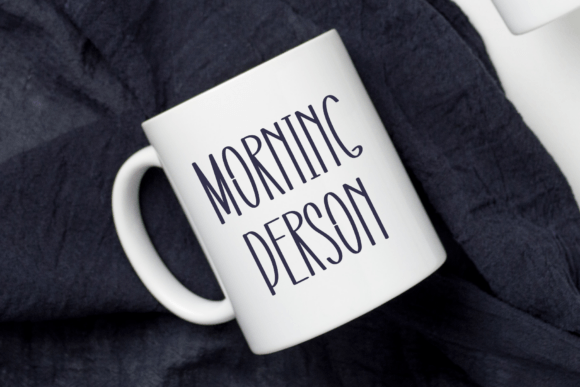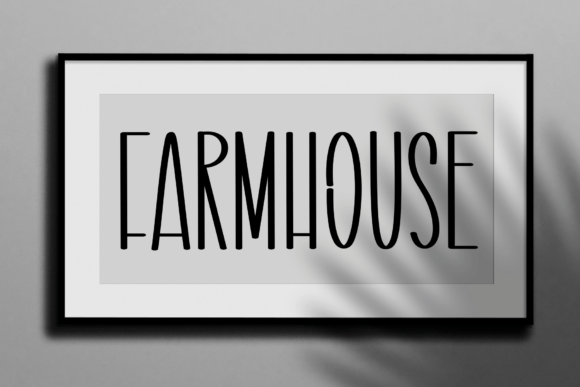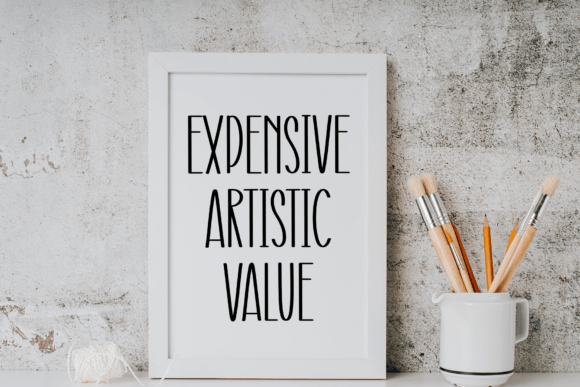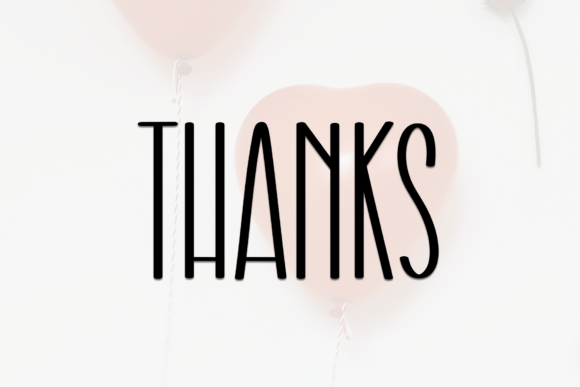
Introducing Bestlove Font: The Perfect Handwritten Marker Font for Your Designs
Are you a designer or crafter looking for a unique and elegant font to elevate your designs? Look no further than Bestlove Font, a beautiful handwritten font that mimics the look of a marker. With its relaxed and sporty feel, Bestlove Font is perfect for a wide range of design projects, from branding and logos to wedding supplies, greeting cards, and marketing promotions.
What Makes Bestlove Font So Special?
Bestlove Font is a carefully crafted handwritten font that exudes a sense of luxury and elegance, while still maintaining a casual and approachable feel. Its marker-like appearance gives it a distinctive and eye-catching quality that sets it apart from other fonts. Whether you’re looking to create a sophisticated brand identity or a playful marketing campaign, Bestlove Font is the perfect choice.
Key Features of Bestlove Font
- Handwritten with a marker feel: Bestlove Font has a unique, hand-crafted look that gives it a personal and human touch.
- Relaxed and sporty feel: The font’s casual vibe makes it perfect for designs that need to feel approachable and laid-back.
- Luxurious and elegant: Despite its casual feel, Bestlove Font still conveys a sense of sophistication and refinement.
- Versatile: Use Bestlove Font for a wide range of design projects, from branding and logos to wedding supplies, greeting cards, and marketing promotions.
Use Cases for Bestlove Font
Bestlove Font is an incredibly versatile font that can be used in a variety of design projects. Here are some ideas to get you started:
- Branding and logos: Create a unique and memorable brand identity with Bestlove Font.
- Wedding supplies: Use Bestlove Font to create beautiful and elegant wedding stationery, decorations, and favors.
- Greeting cards: Add a personal touch to your greeting cards with Bestlove Font’s marker-like appearance.
- Fashion and lookbooks: Use Bestlove Font to create stylish and sophisticated fashion designs and lookbooks.
- Marketing promotions: Make your marketing campaigns stand out with Bestlove Font’s unique and eye-catching style.
Why Designers and Crafters Love Bestlove Font
Designers and crafters love Bestlove Font for its unique combination of elegance and casualness. Here are some reasons why:
- Ease of use: Bestlove Font is easy to read and works well in a variety of design contexts.
- Customizability: The font’s marker-like appearance makes it easy to customize and pair with other fonts.
- Uniqueness: Bestlove Font’s distinctive style sets it apart from other fonts and makes it a great choice for designers looking to create something new and original.
Bestlove Font is a beautiful and versatile handwritten font that’s perfect for designers and crafters looking to add a touch of elegance and sophistication to their designs. With its relaxed and sporty feel, marker-like appearance, and ease of use, Bestlove Font is an excellent choice for a wide range of design projects. Try it out today and see how it can elevate your designs to the next level!